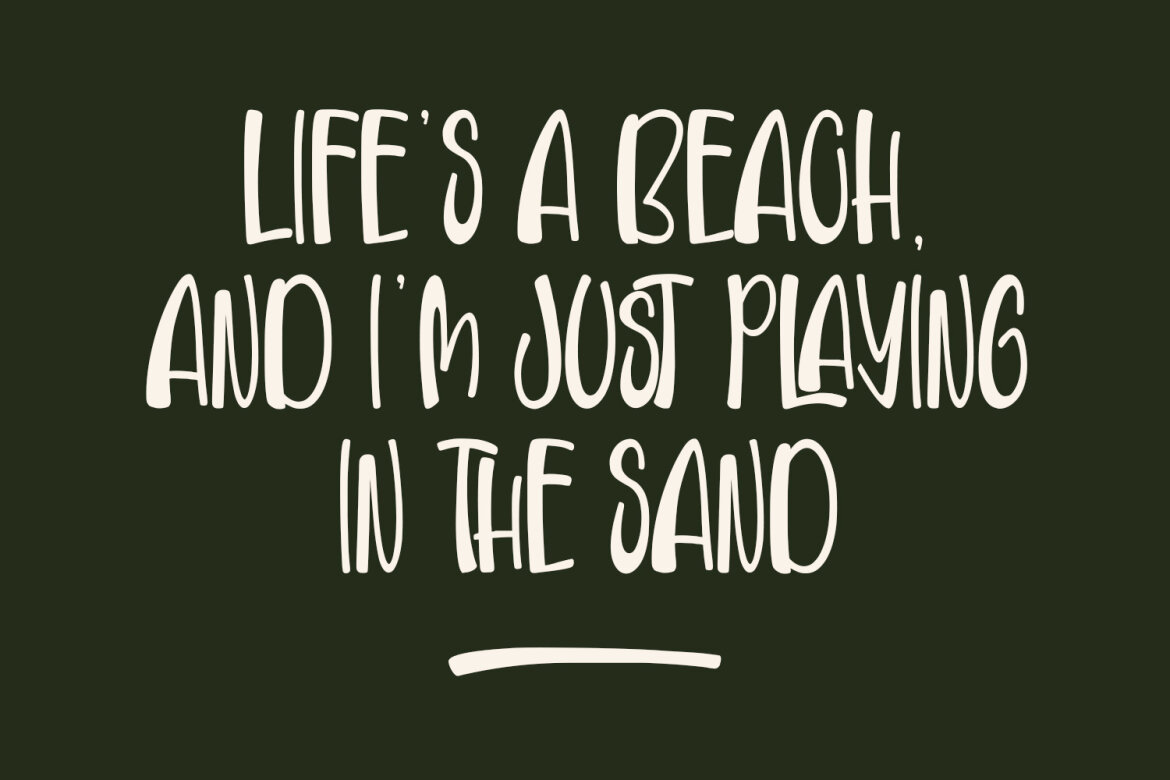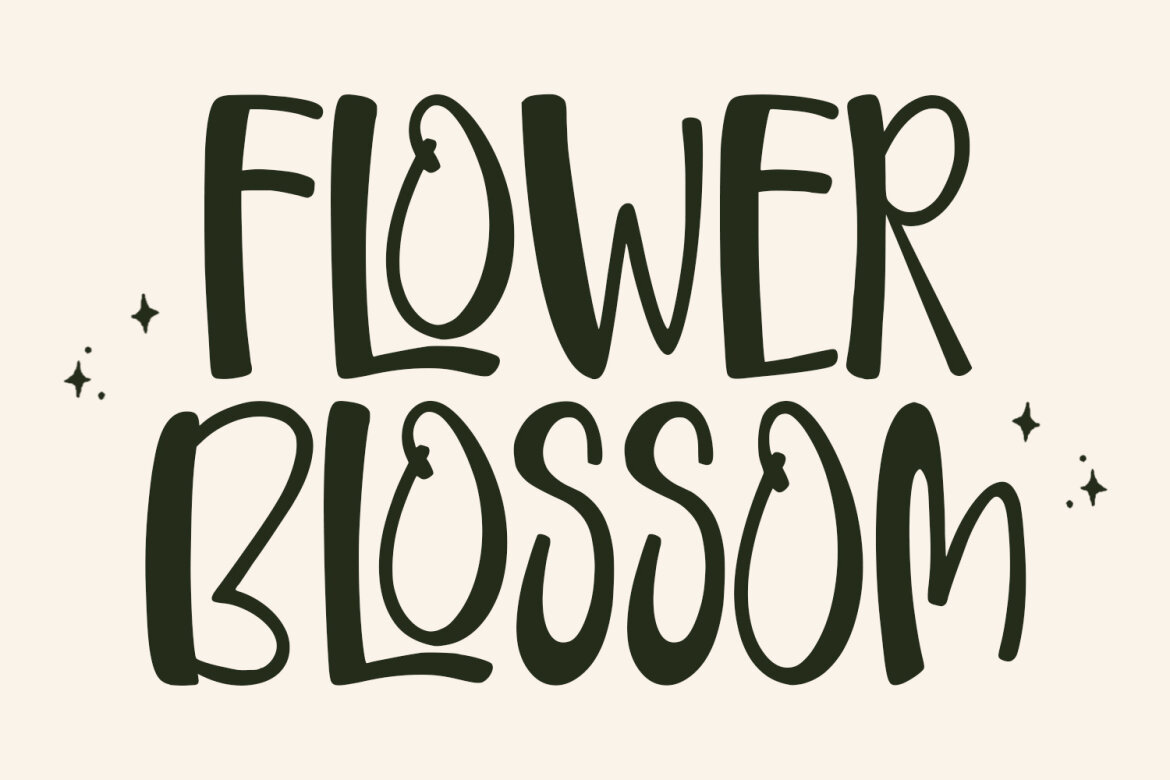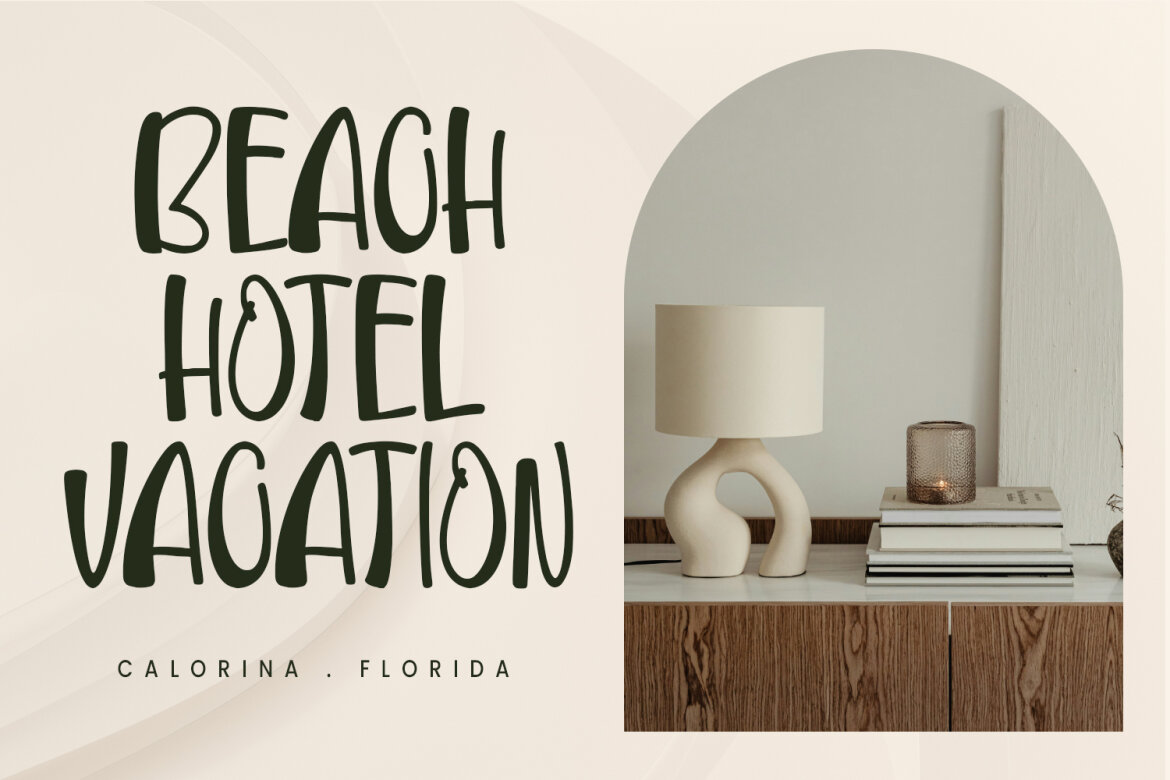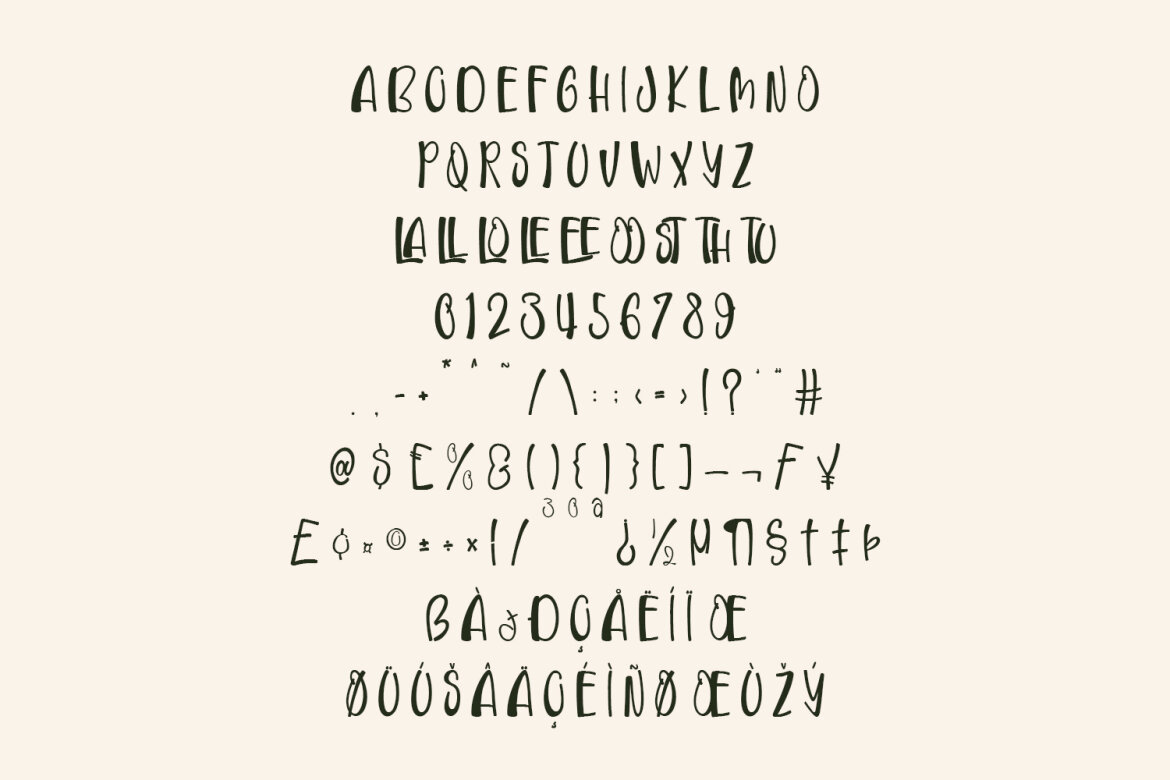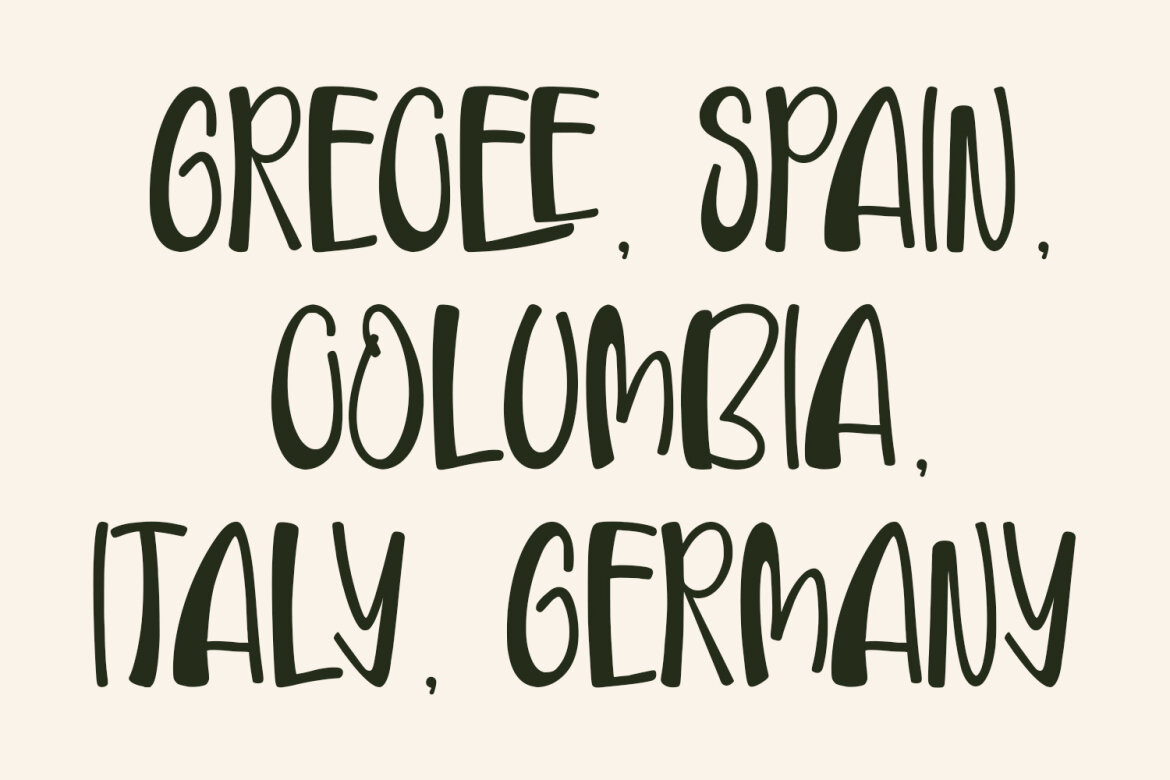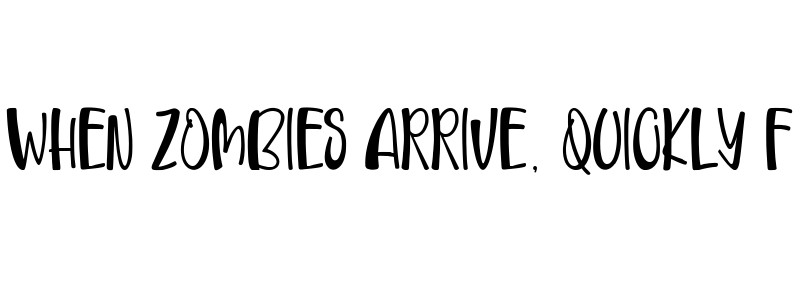
Bloerd Xlospun Cute Kids FREE Font
Bloerd Xlospun handmade cute kids display font, fun character with awesome ligatures. To give you an extra creative work. Bloerd Xlospun handmade cute kids display font support multilingual language.